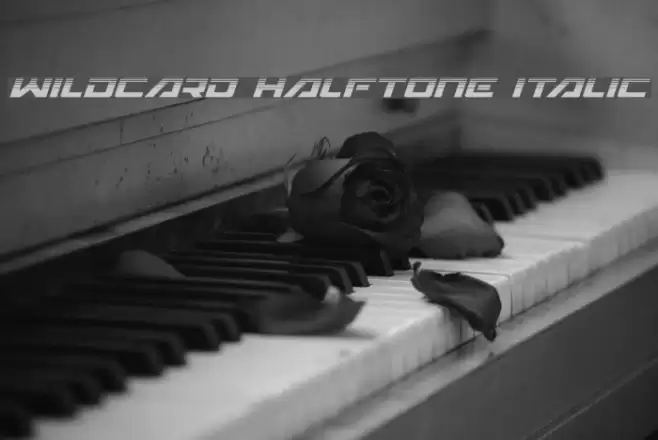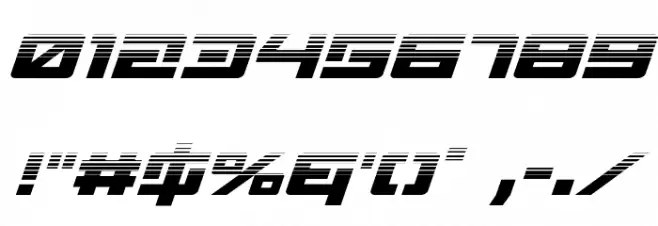
Wildcard Halftone Italic Font
Wildcard Halftone Italic Description
This font features a bold, futuristic design with a halftone effect that gives it a dynamic and energetic appearance. The characters are italicized, adding a sense of motion and speed. Each letter is composed of thick, angular strokes with a striped pattern that creates a sense of depth and dimension. The font maintains a consistent width across all characters, ensuring uniformity and balance. Its unique style makes it stand out, perfect for projects that require a modern and edgy look.
A bold, italicized font with a futuristic halftone effect and angular design from Uncategorized fonts.
- Proposed Projects: Ideal for sci-fi themed designs, video game titles, posters, and branding that requires a modern and dynamic touch.